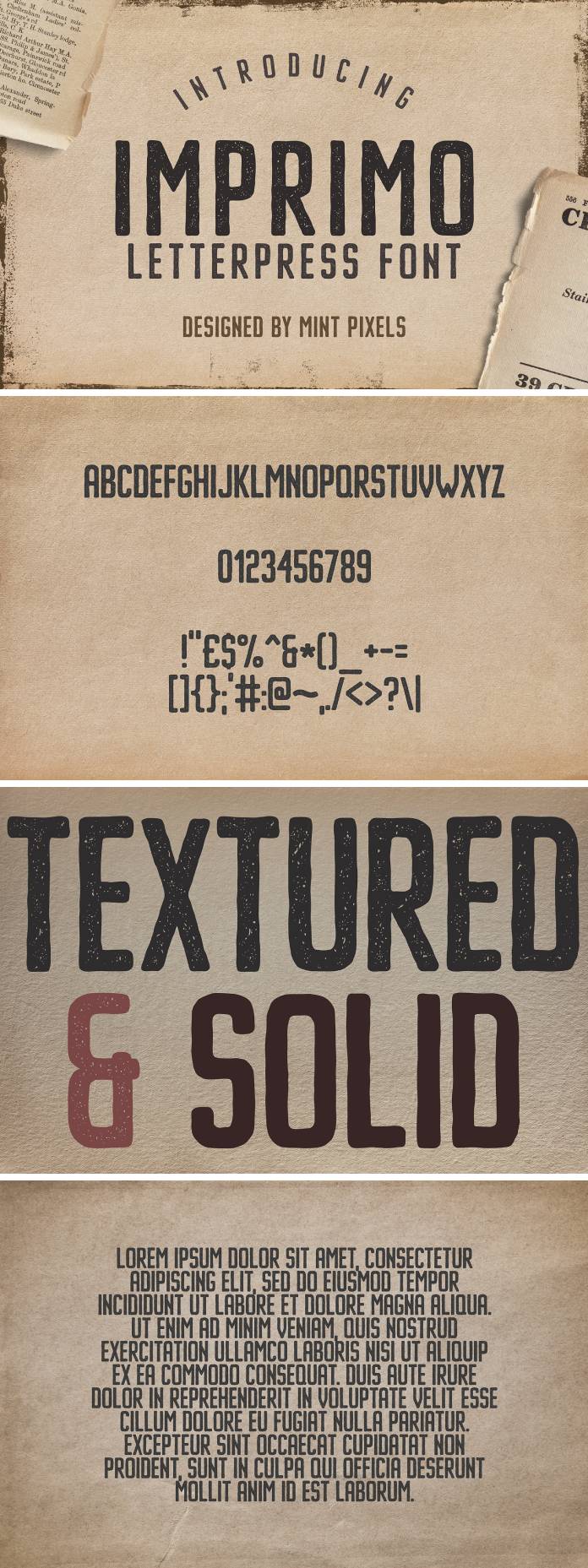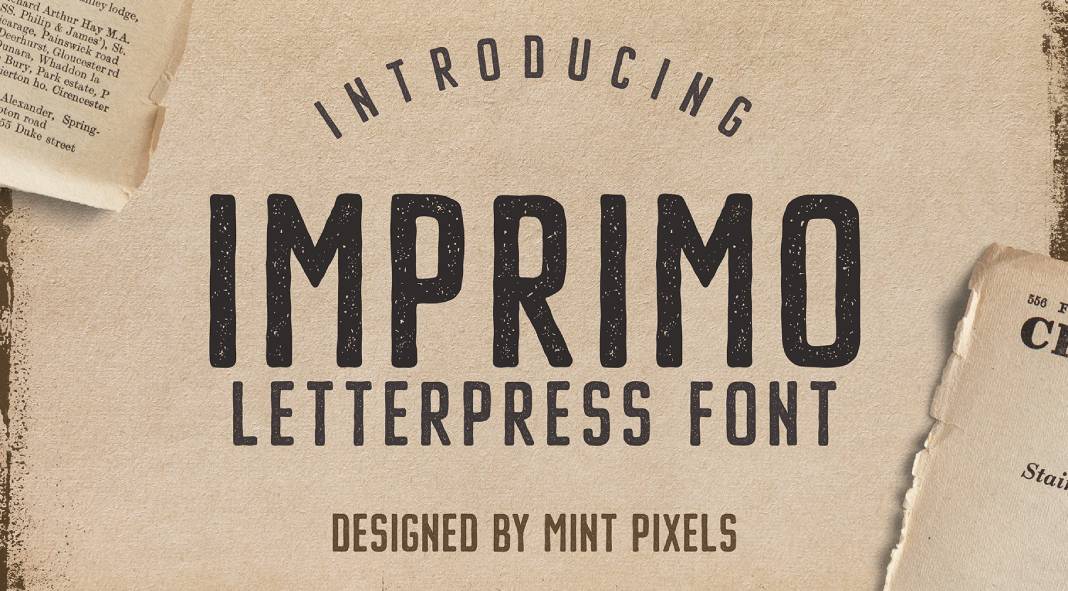
The Imprimo font, crafted by the skilled hands at Mint Pixels, is a breathtaking tribute to the vintage allure of letterpress typefaces. This uppercase sans-serif font effortlessly captures the essence of a bygone era, infusing any project with an air of nostalgia and timelessness.
With its bold, decorative strokes and artful distressing, Imprimo stands tall as a statement piece, ideal for titling and commanding attention. The font’s versatility shines through its two distinct styles: the textured variant adds depth and character, while the solid option exudes a classic, unadulterated charm.
Imprimo Letterpress Vintage Font by Mint Pixels
In the hands of a skilled designer, Imprimo transforms ordinary text into an evocative element, transporting audiences to a bygone era with its vintage charm. Its ability to evoke emotions and set a mood makes it a standout choice for those seeking to infuse their projects with a hint of the past.
Overall, Imprimo stands as a testament to Mint Pixels’ artistry and dedication to creating fonts that transcend mere letters, becoming vessels of storytelling and design excellence. For anyone seeking to imbue their work with a touch of vintage flair and visual poetry, Imprimo emerges as a captivating choice worthy of consideration.